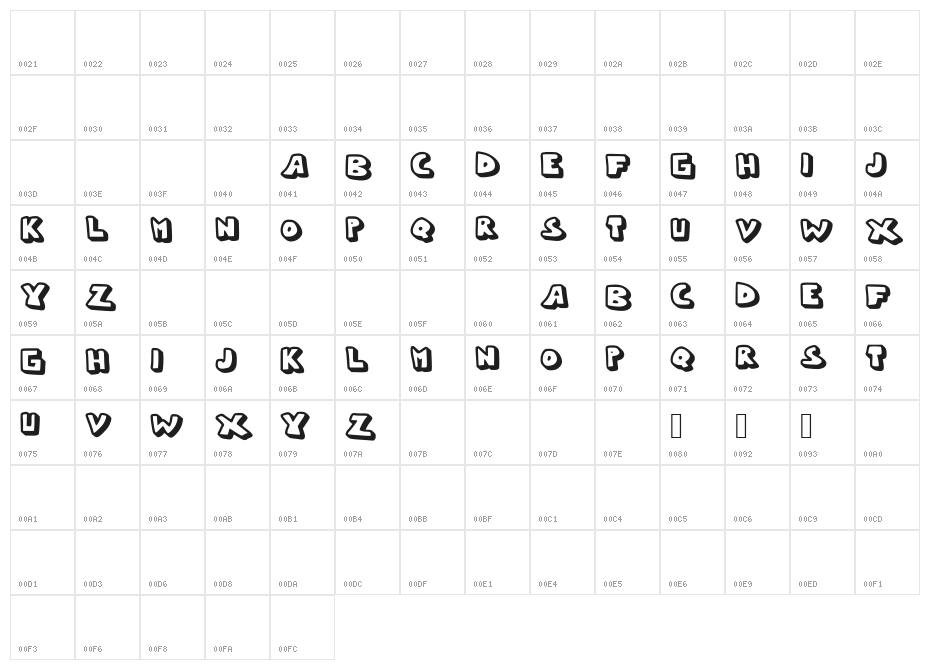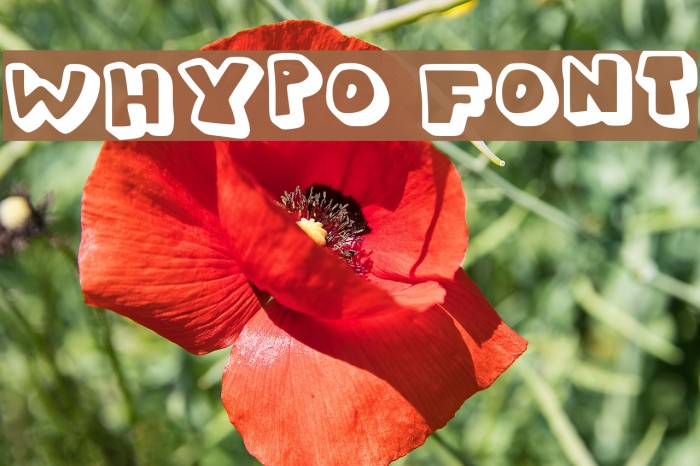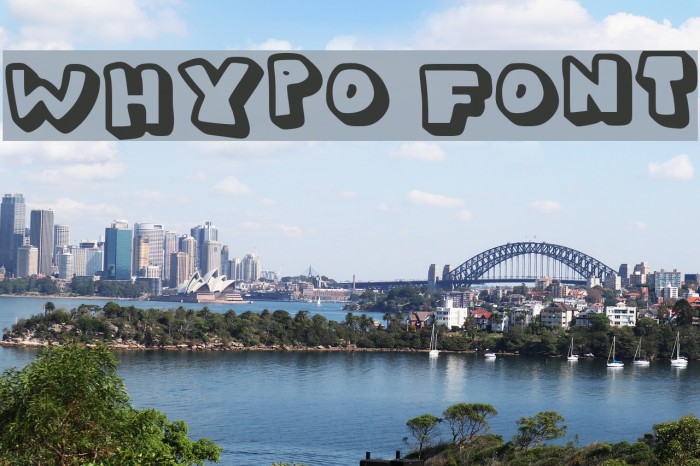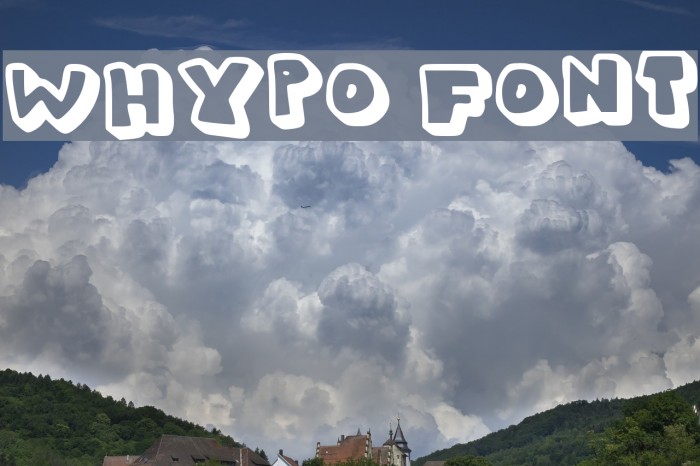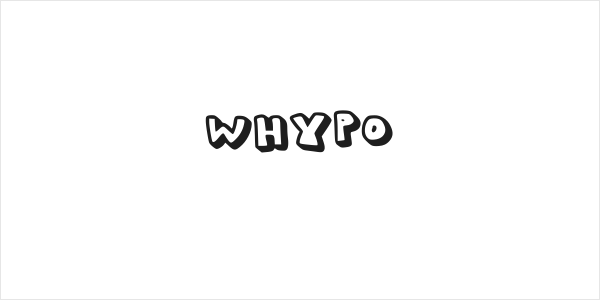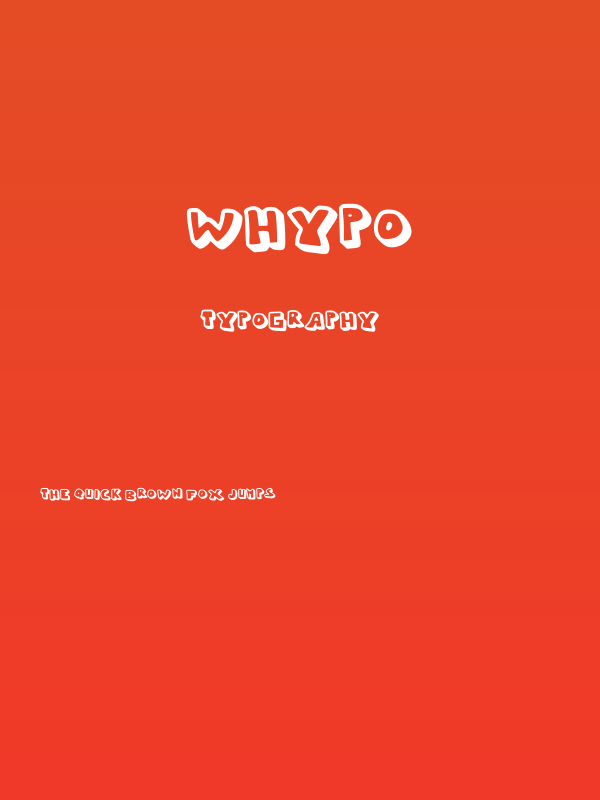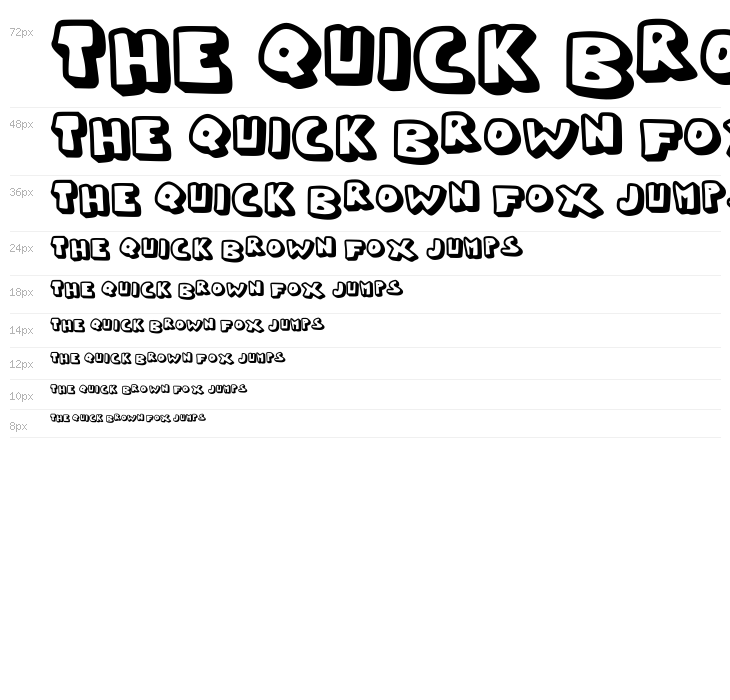
Whypo Font
Whypo Description
This playful and bold font features a cartoonish style with thick, rounded edges and a three-dimensional shadow effect that gives it a lively and dynamic appearance. The uppercase letters are prominent and slightly irregular, adding to the whimsical feel. The font is designed to capture attention and convey a sense of fun and creativity. Its unique style makes it suitable for projects that require a touch of humor and lightheartedness. The characters are well-spaced, ensuring readability while maintaining the font's distinctive personality.
Overall StylePlayful
Proposed ProjectsIdeal for children's books, comic strips, playful branding, and event posters.